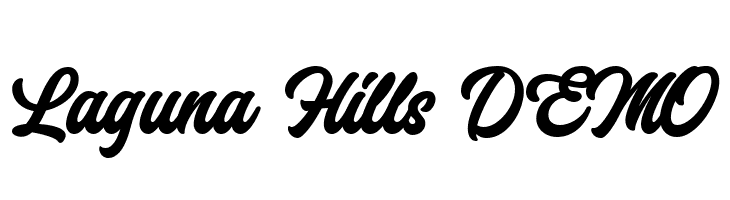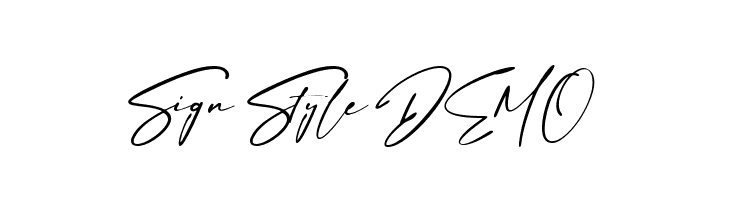
A geometric and futuristic font with clean lines and angular shapes.
A bold, geometric font with a modern, industrial style.
A bold, cursive script font with smooth, connected strokes.
A calligraphic font with gothic influences, featuring sharp strokes and a flowing style.
A dynamic and flowing script font with elegant, fluid strokes.
A bold, playful handwritten font with expressive strokes.
A playful, casual handwritten font with smooth, flowing lines.
A playful, hand-drawn font with a brush stroke style.
A bold, rugged font with a distressed, vintage appearance.
A playful, bold font with rounded, bubbly characters.